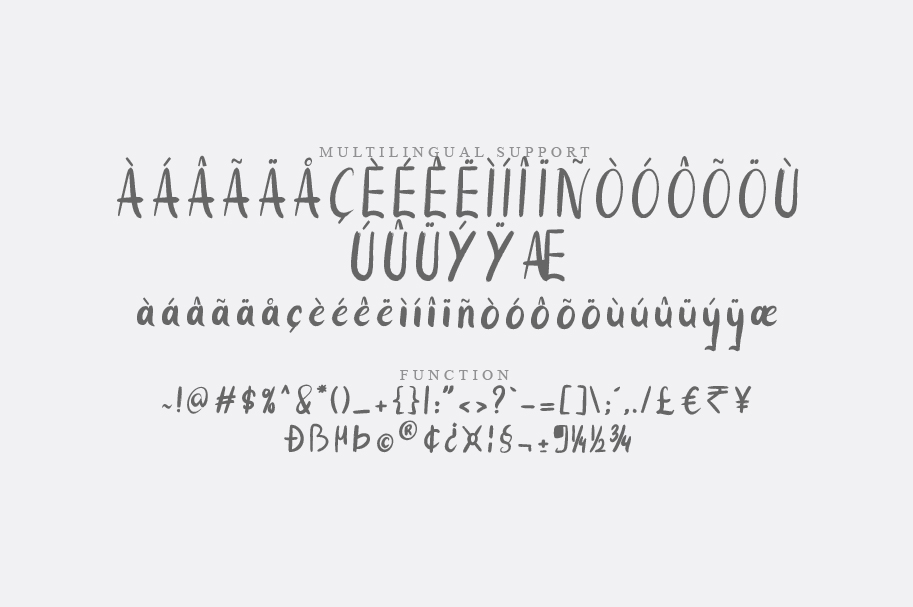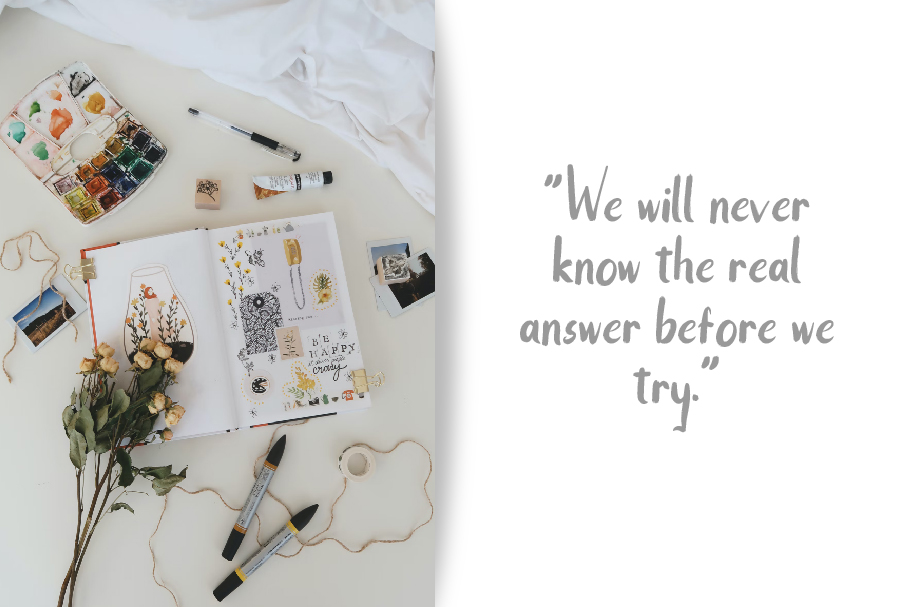
Sketch Font
Sketch Brush Font
This is a lovely and timeless handwritten font. It is the best choice for creating eye catching logos, branding and quotes. Every letter has a unique and beautiful touch, which will make your design come alive!